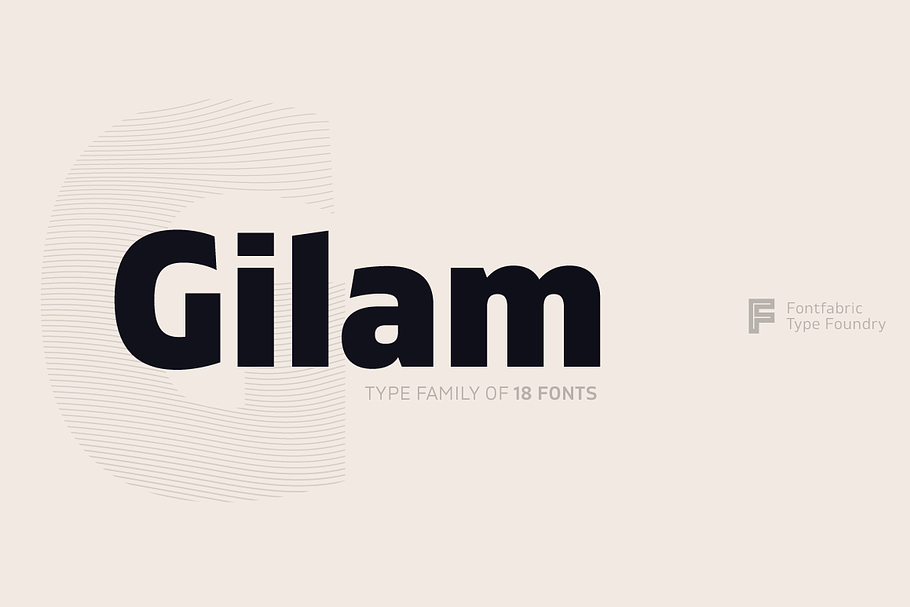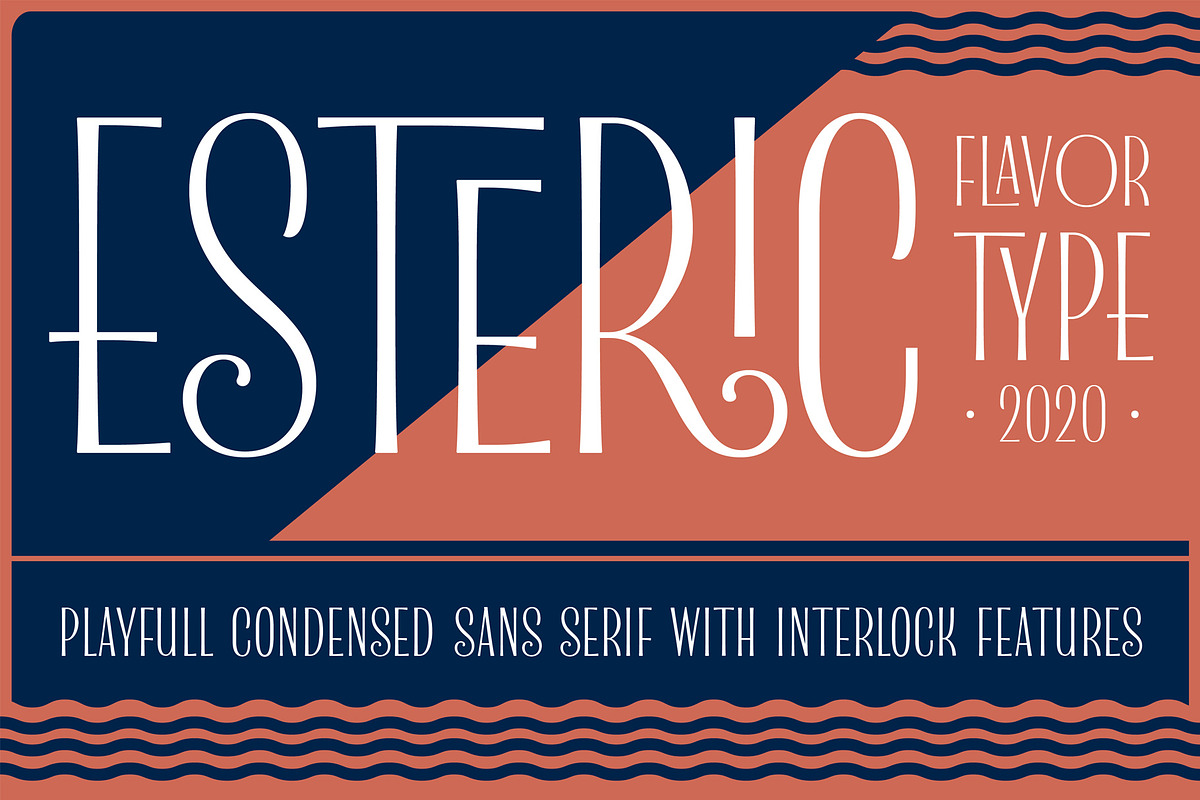
Keep it to 2 fonts for a ratio of serif vs sans serif fonts one of each is probably enough.
Sans serif fonts definition. For this reason they are used most often for short text components such as headlines or captions. Serif and sans serif. Sans serif definition a style of monotonal type without serifs. Sans serif typeface right.
Because of the difference between serif and sans serif fonts its important to be aware of a few key things. Wrapping up the difference between serif and sans serif fonts. They are often used to convey simplicity and modernity or minimalism. Dont mix too many fonts in the one design.
Popular sans serif fonts include helvetica avant garde arial and geneva. The font also includes such characteristics as size weight italics and so on. The term sans serif in it is used for different types of text fonts and layouts. Sans serif definition is a letter or typeface with no serifs.
According to most studies sans serif fonts are more difficult to read. A typeface or font family making use of serifs is called a serif typeface or serifed typeface and a typeface that does not include them is a sans serif one. As cnet reports the font ironically called sans forgetica is a sans serif style typeface which slants to the left an usual design principle. Any typeface in which the letters do not have serifs small lines added to them.
There are two general categories of typefaces. It refers to letters and characters that lack a developed set of accent lines at the ends of the broader pen strokes that create the characters shape. Popular typefaces include times roman helvetica and courier. De or gothic 1 and serif typefaces as roman.
Some typography sources refer to sans serif typefaces as grotesque in german grotesk code. Sans serif fonts have become the most prevalent for display of text on computer screens. Serif fonts include times roman courier new century schoolbook and palatino. Daniel tamul the conversation typefaces have personality and can be political 6 may 2020 phantom sans for example is a pretty.
The typeface represents one aspect of a font. Sans serif synonyms sans serif pronunciation sans serif translation english dictionary definition of sans serif. Sans serif fonts tend to have less stroke width variation than serif fonts. Recent examples on the web the sign in blacksburg used a sans serif font that graphic designers generally consider more modern in part because they were developed relatively recently.